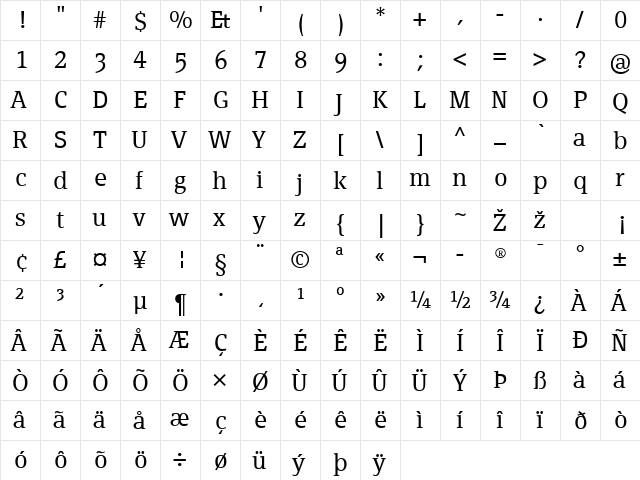
PageSerifTF-Light Regular Font Preview
PageSerifTF-Light Regular
PageSerifTF-Light Regular Font Details
| Foundry | Albert Boton, published by FontShop International for the FontFont Library |
| Designer | Albert Boton |
Design Context for PageSerifTF-Light Typeface
PageSerifTF-Light brings classic typographic sensibility to the table — its serifs and measured letterforms reflect centuries of print heritage. The delicate stroke weight brings airiness and refinement to layouts.